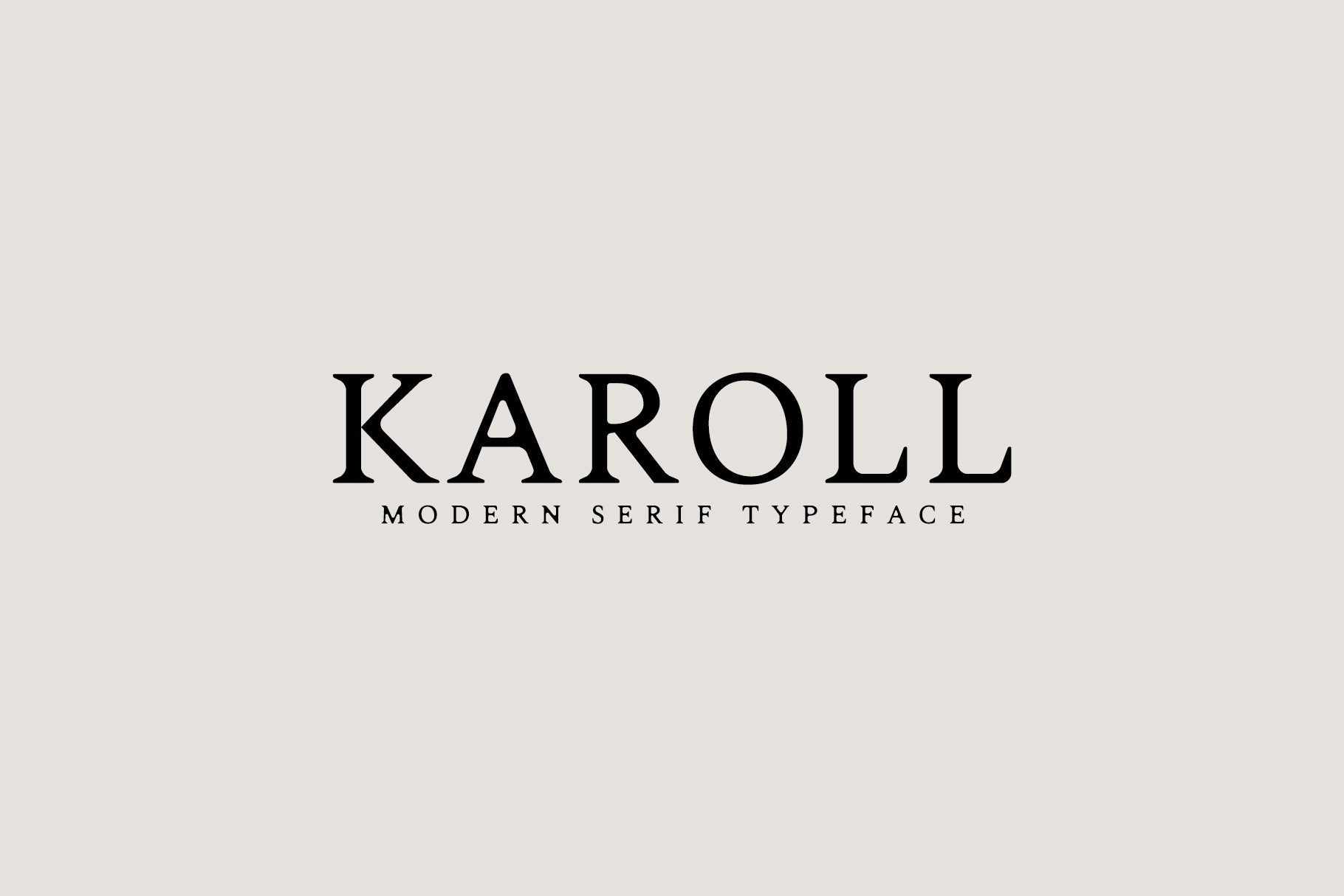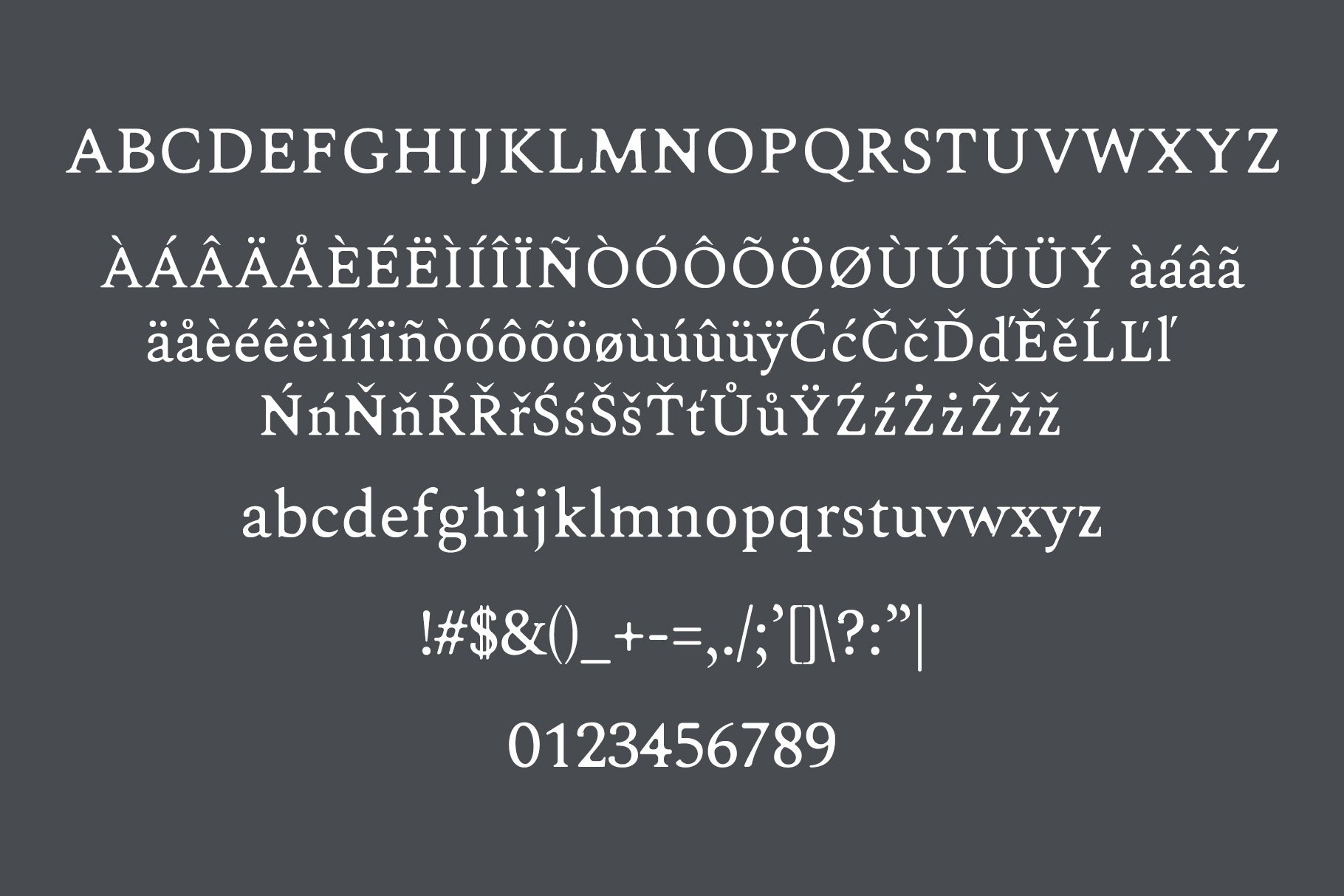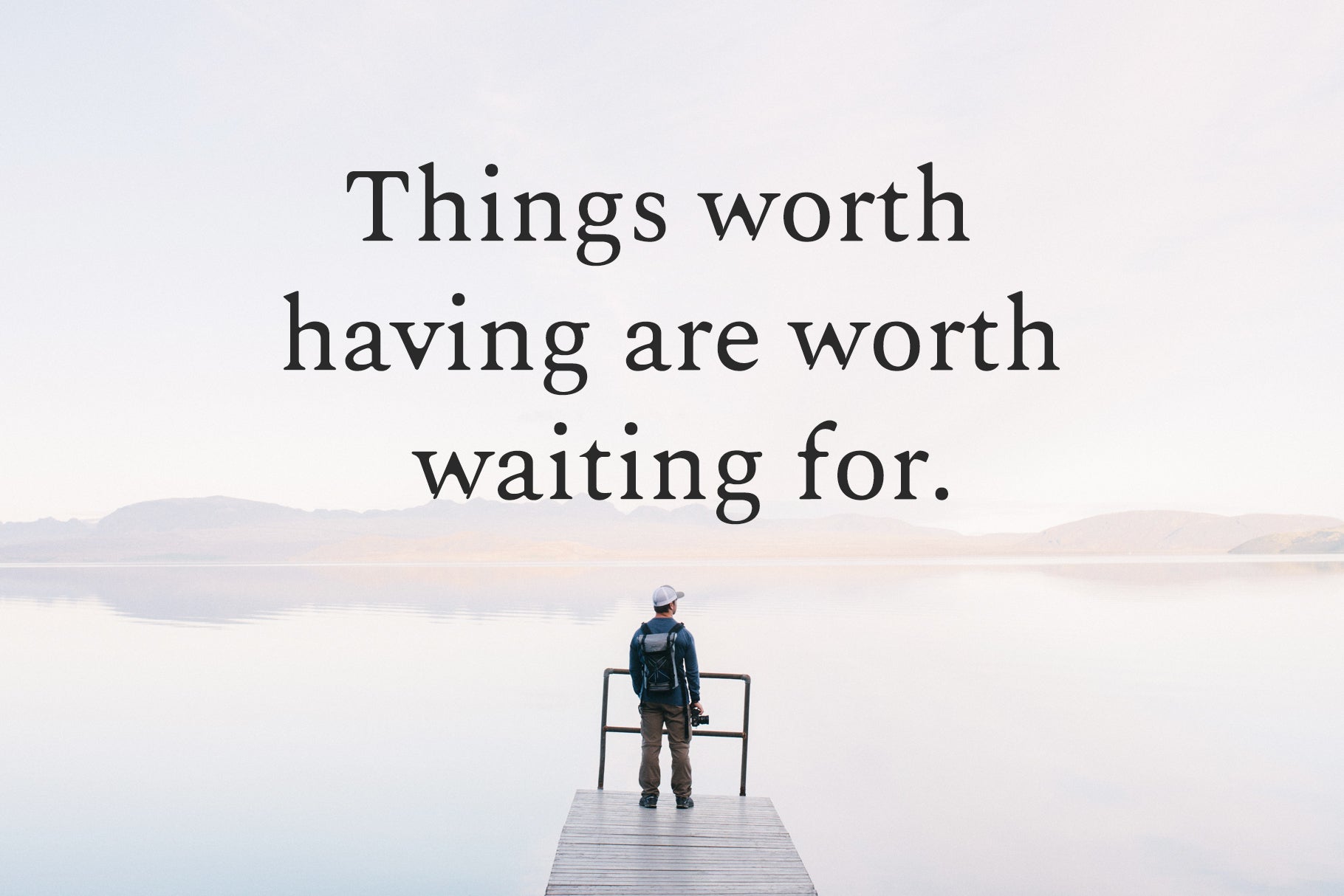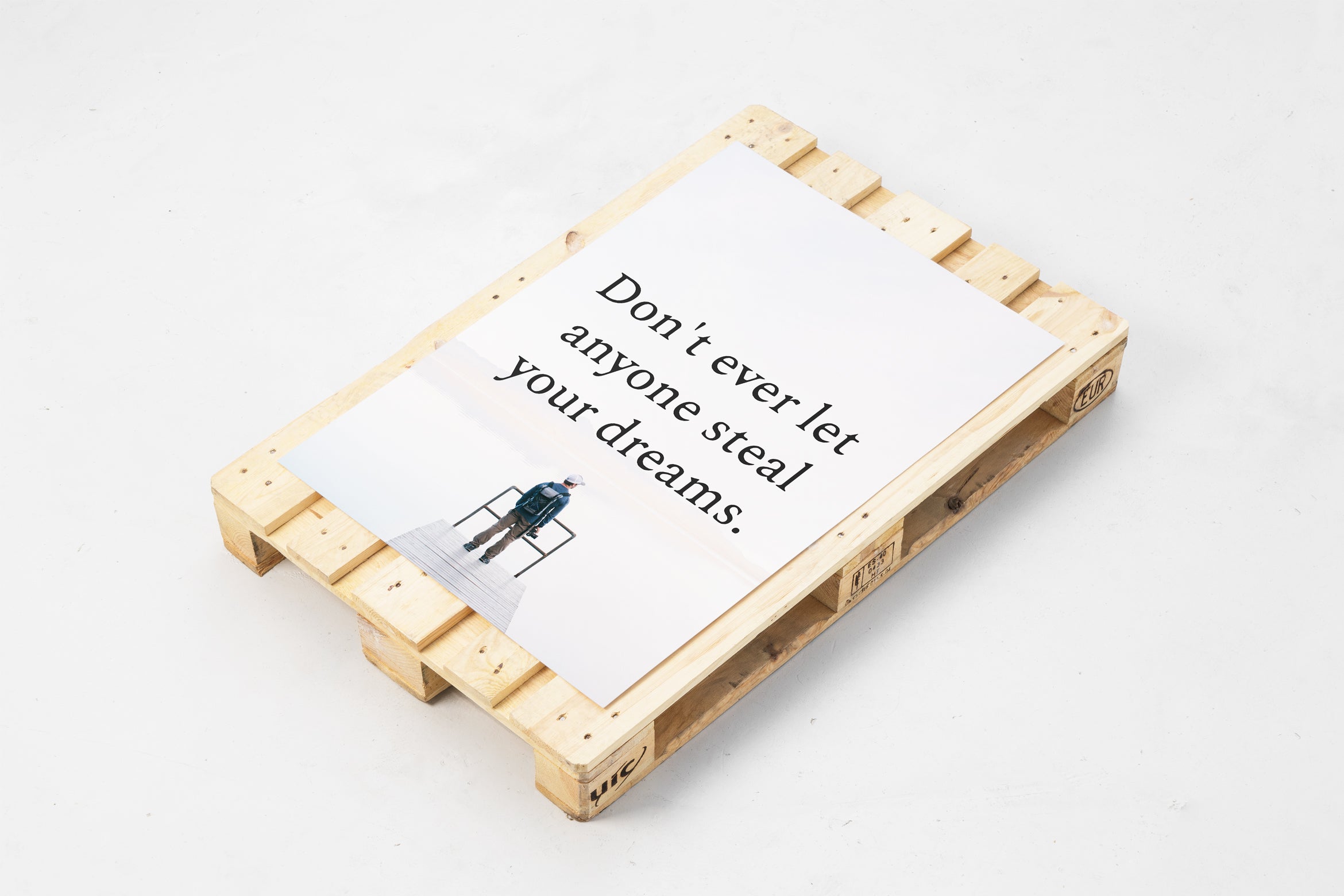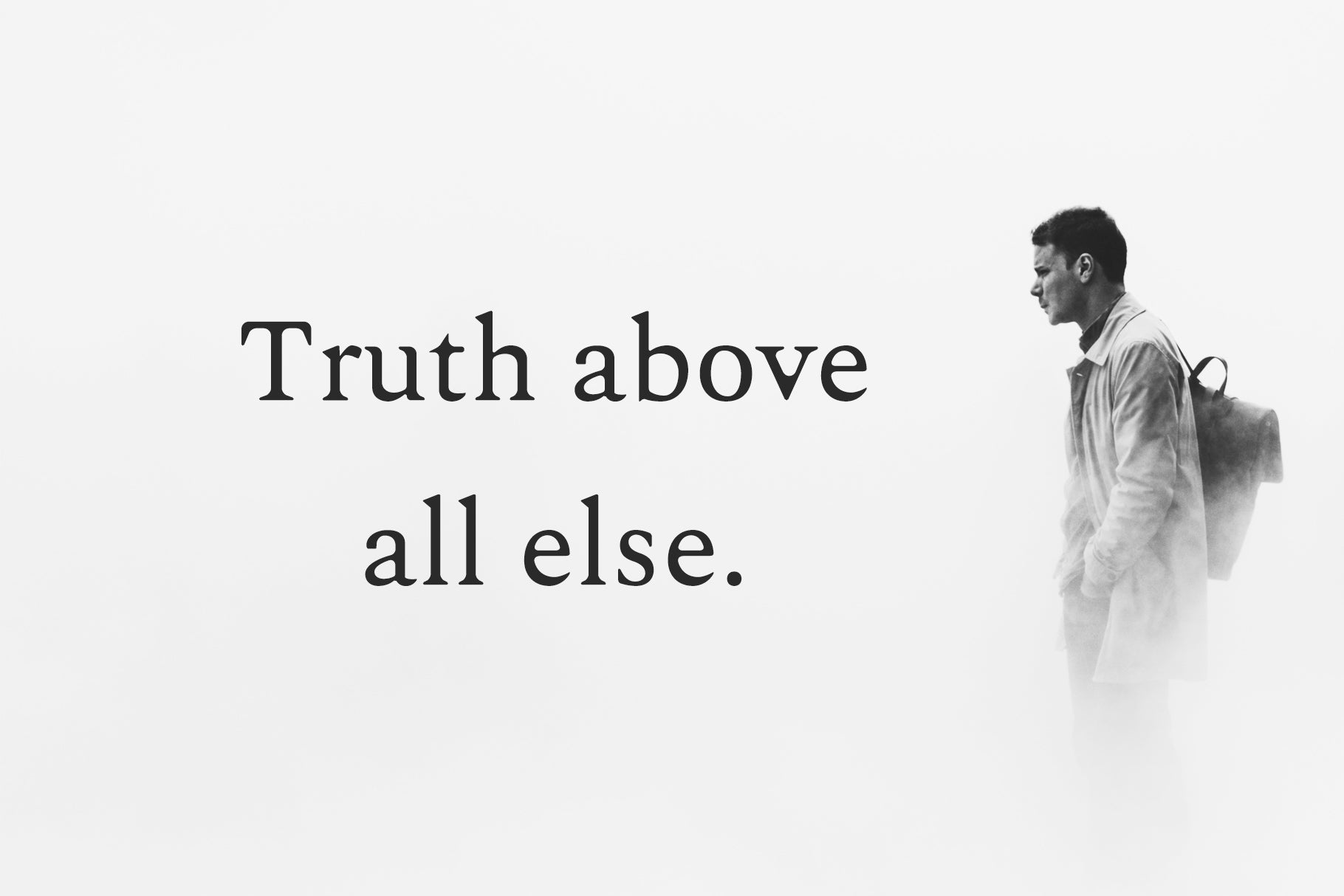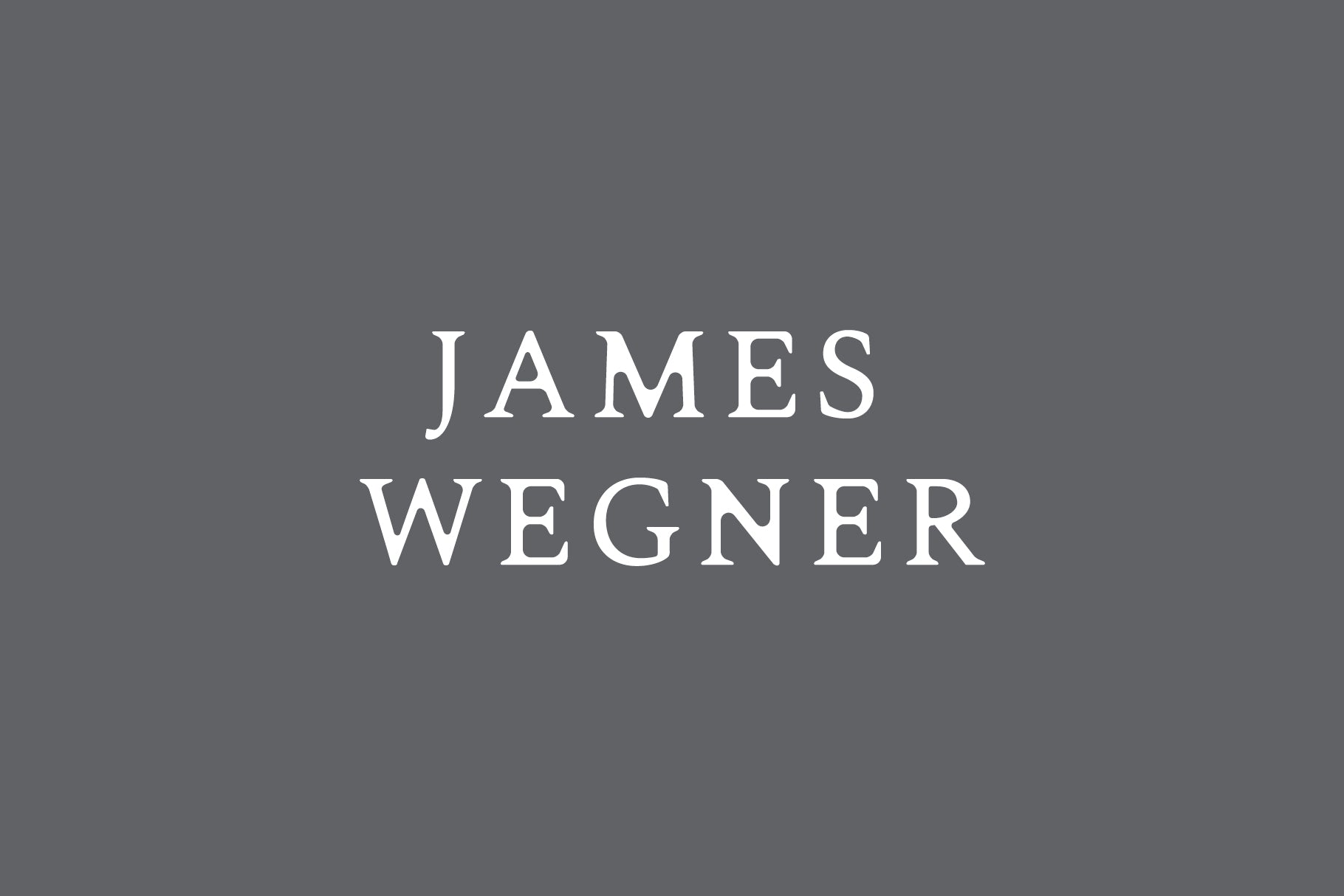
Karoll is a vintage inspired sophisticated, sleek lines serif font typeface. It includes all basic glyphs with Non-English characters. This font will pair beautifully with the display, signature, sans serif, script, or handwriting style fonts.
Font Weight: Round, Light Round and Bold Round
Uppercase Multilingual Letters
Lowercase Multilingual Letters
Numbers & Punctuation
Non English Characters (Latin Supplement + Latin Extended A)